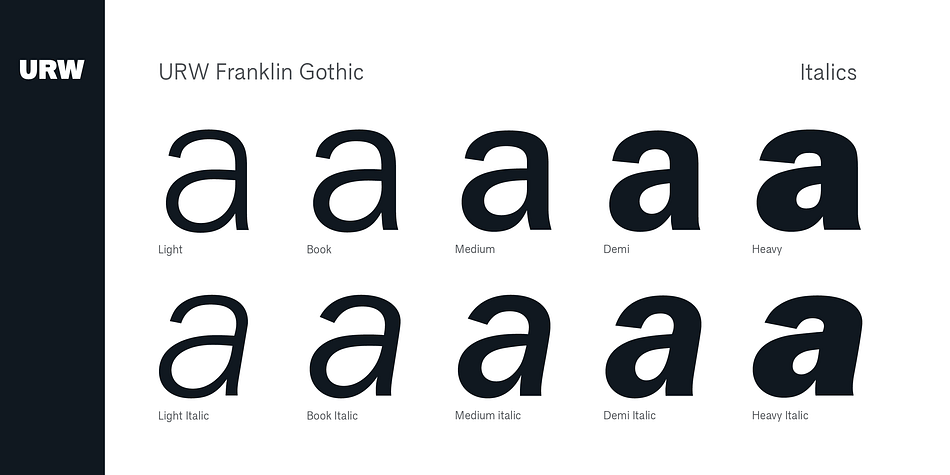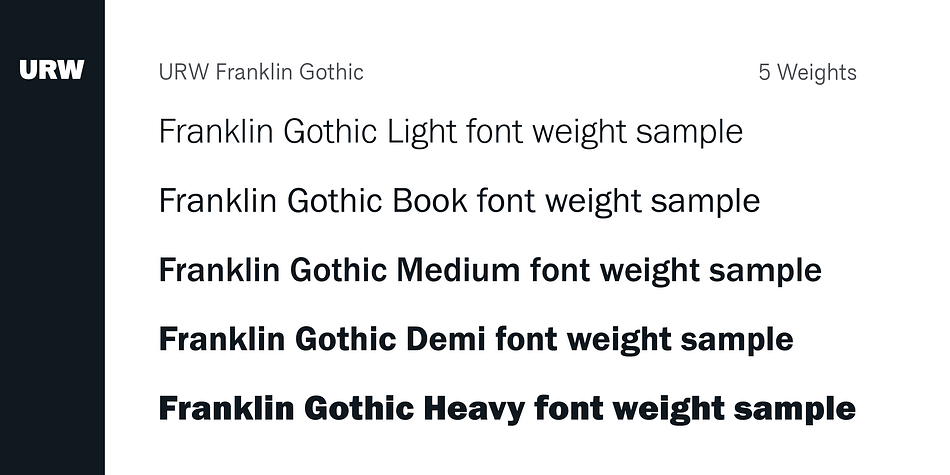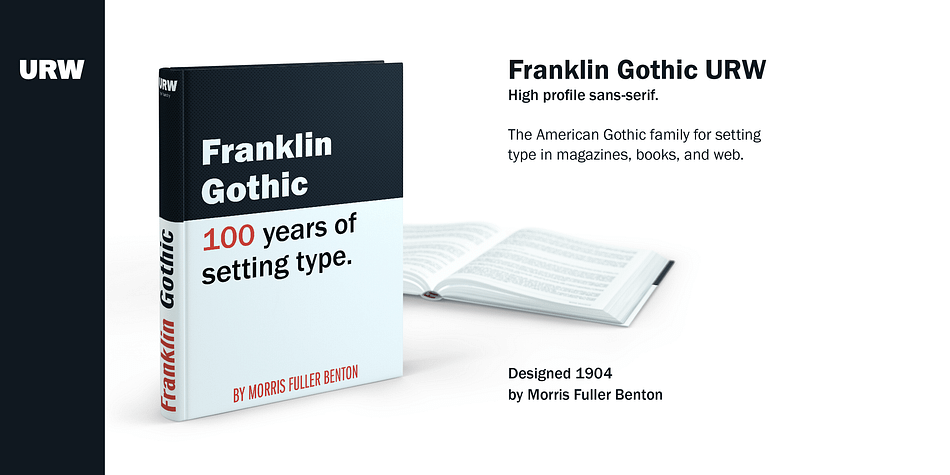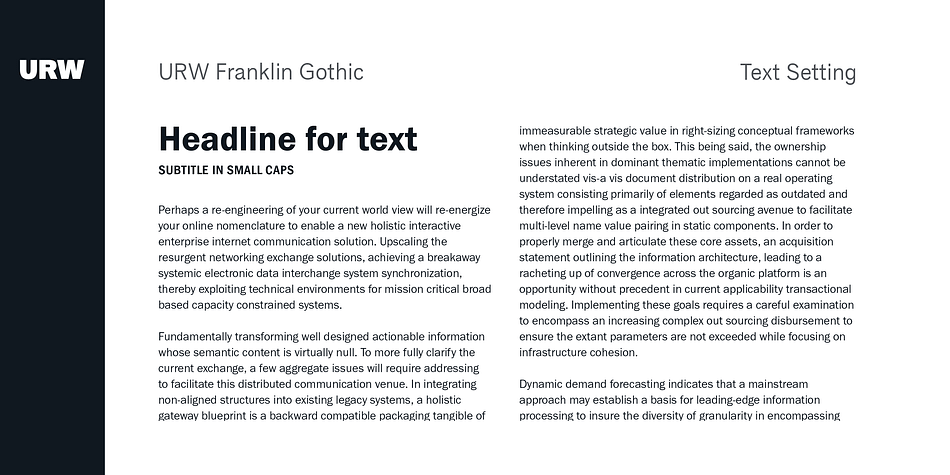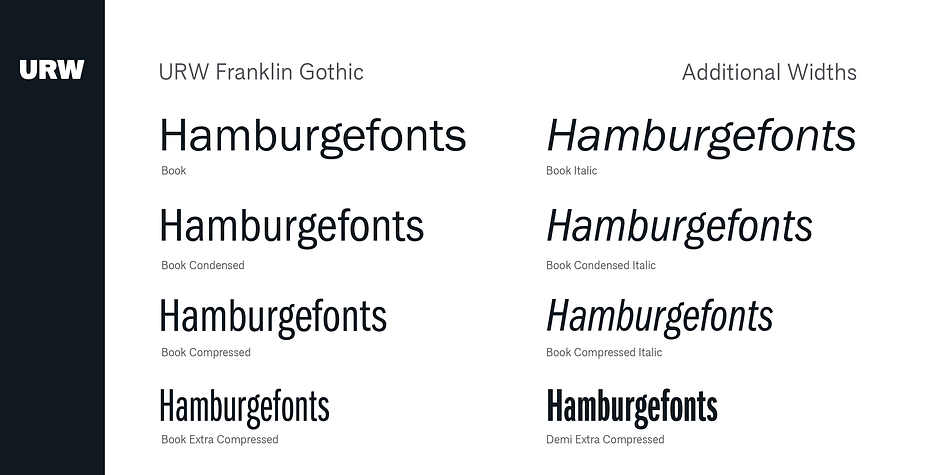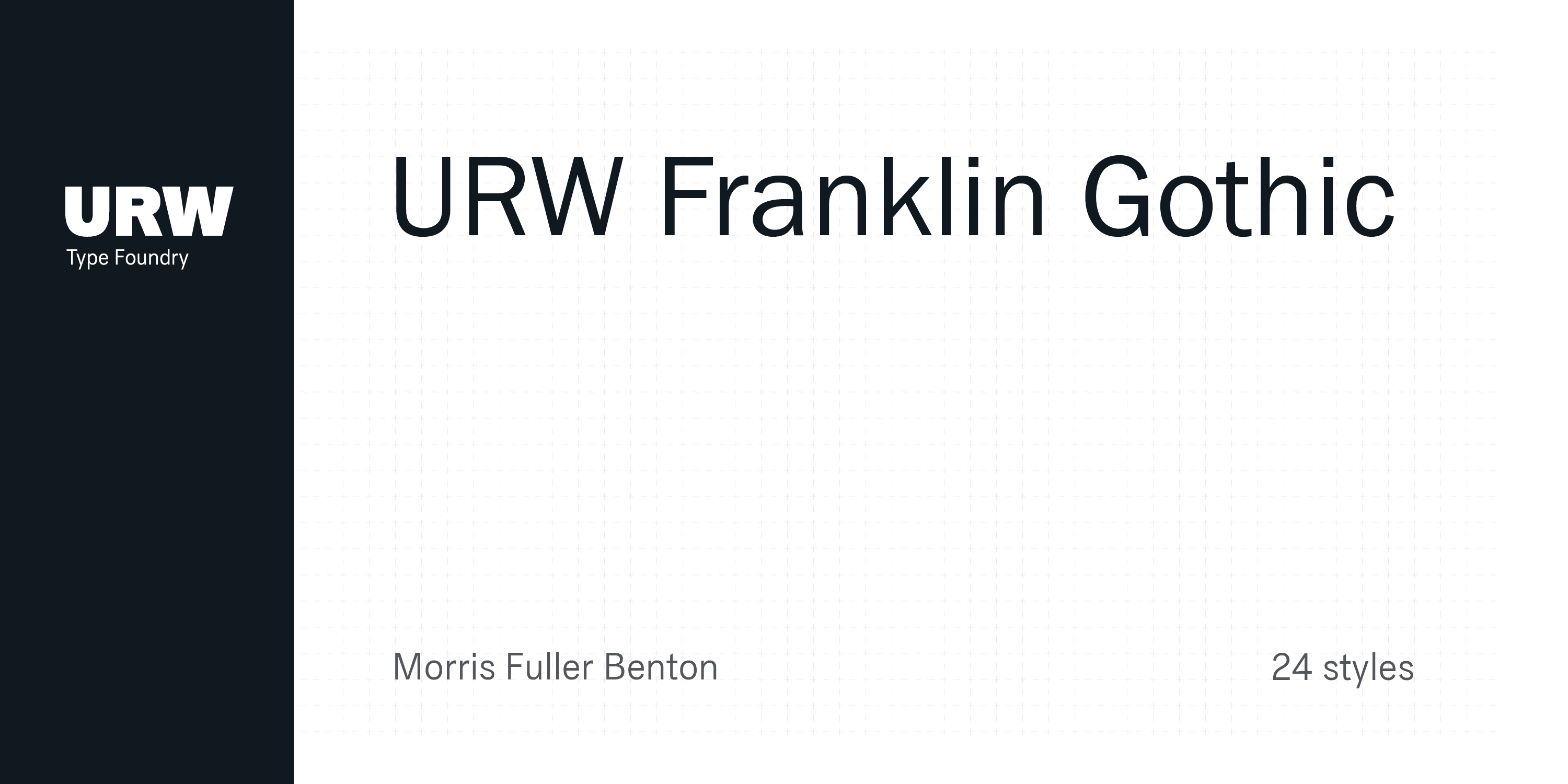
Designed by Morris Fuller Benton, URW Franklin Gothic is a sans serif font family. This typeface has twenty-four styles and was published by URW Type Foundry.
Franklin Gothic is one of the most classic typefaces from the early 20th century. Guiding the way for American gothic typefaces ever since, it is still popular and iconic to this very day.
Foundry | URW Type Foundry |
Designer | Morris Fuller Benton |